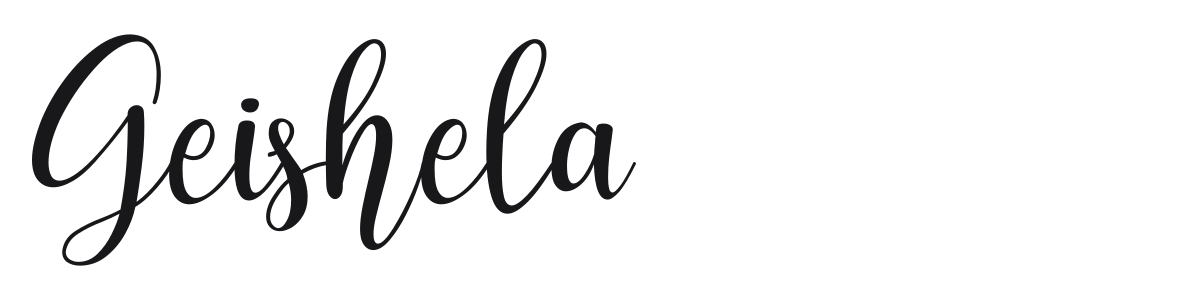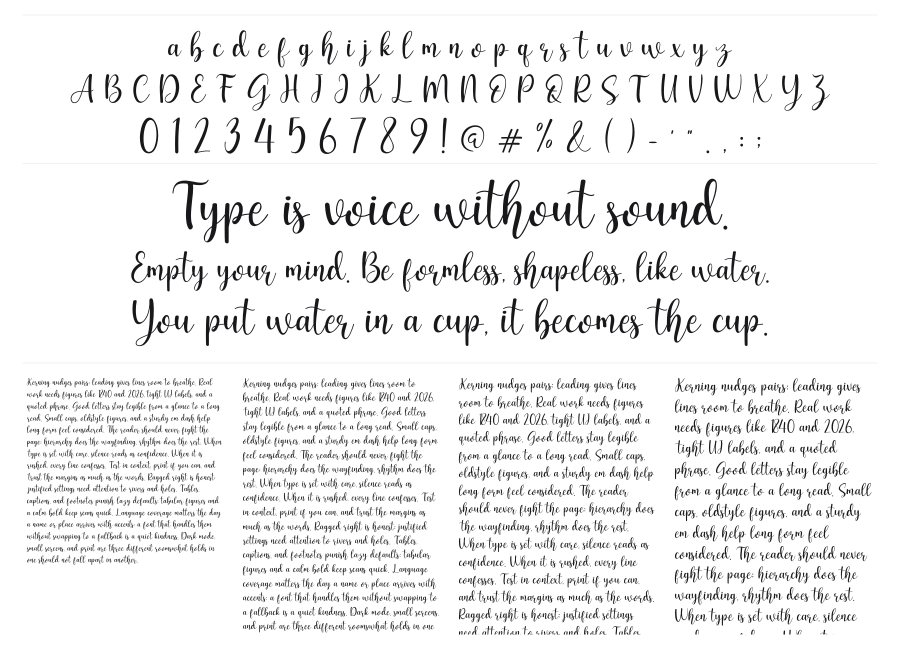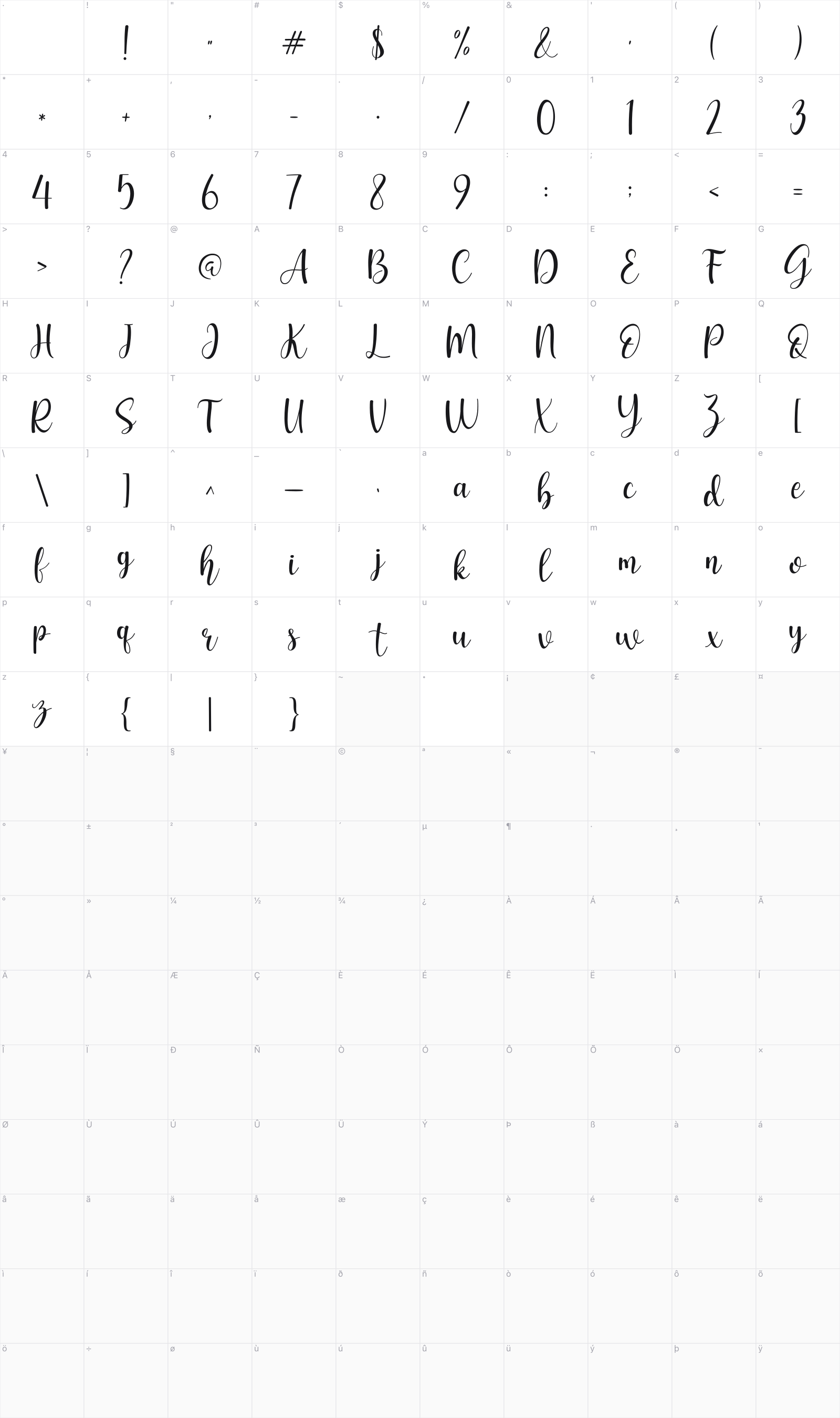
Geishela
Geishela is a bold contemporary brush script with expressive high-contrast strokes and a lively, connected flow. Looping ascenders and generous swashes give it a handcrafted warmth that feels at home on wedding invitations, packaging, and lifestyle branding. The bouncy baseline keeps it feeling spontaneous rather than stiff.